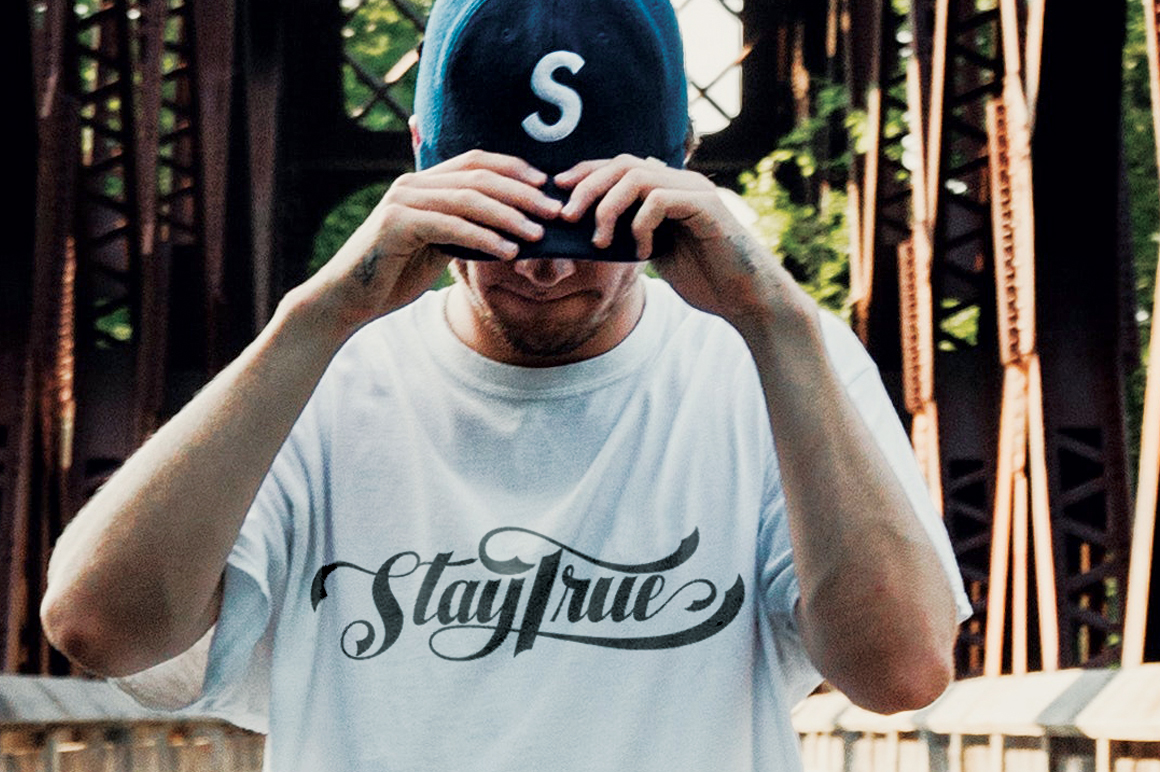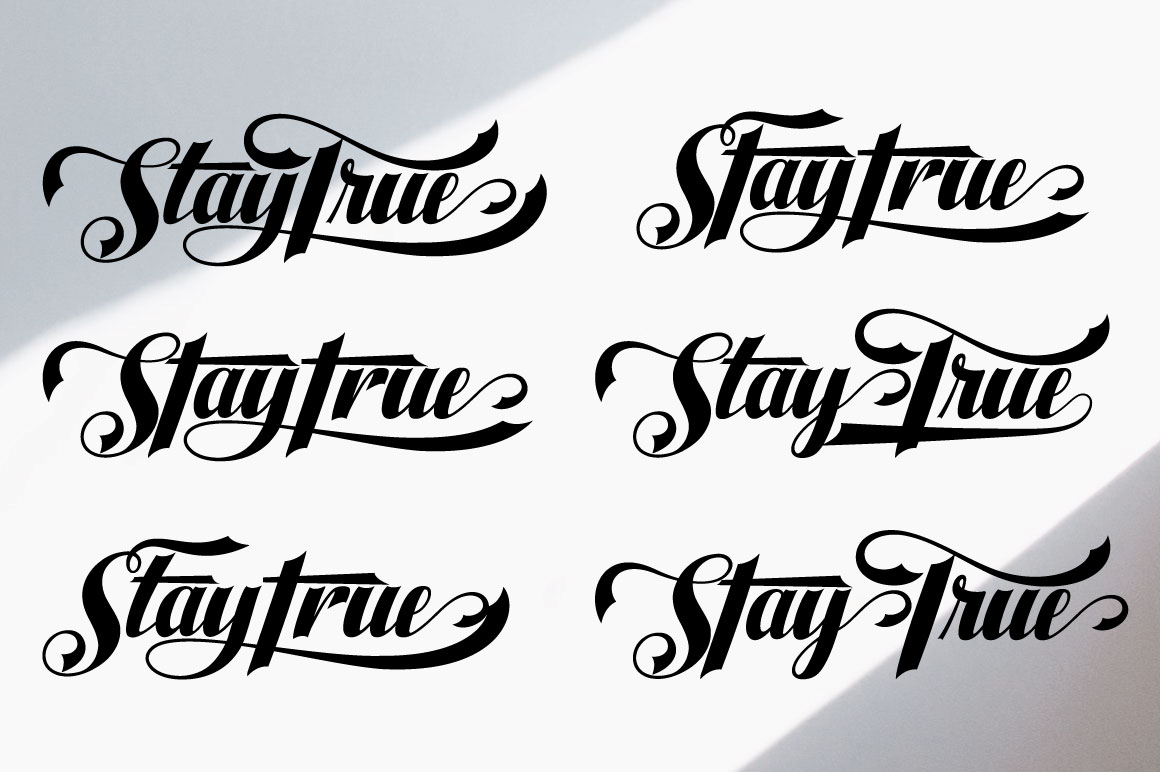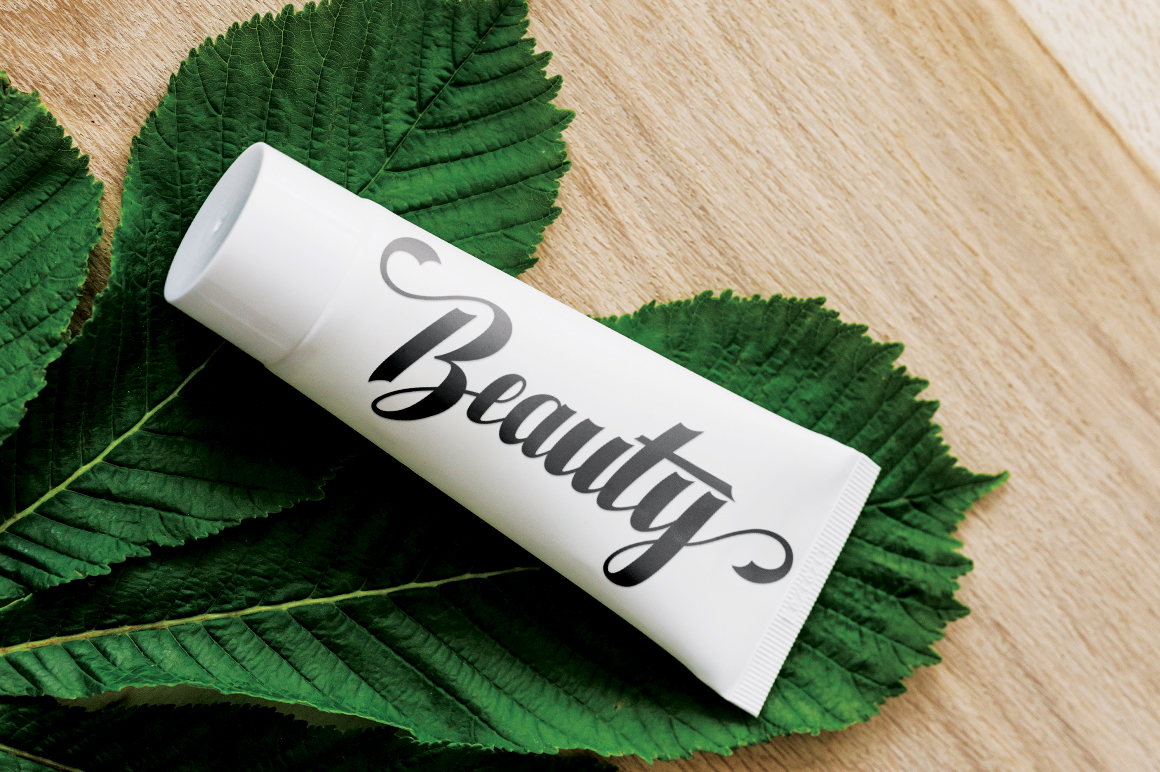
Staytrue Calligraphy Font
This is a modern and simple handwritten font created in a random and freestyle. It is suitable for logotype, Typography, headline, corporate identity, brand identity, apparel industry, poster, music, movie, game, magazine, book, comic, cartoon, YouTube, Instagram, website, or any of your creative design projects.